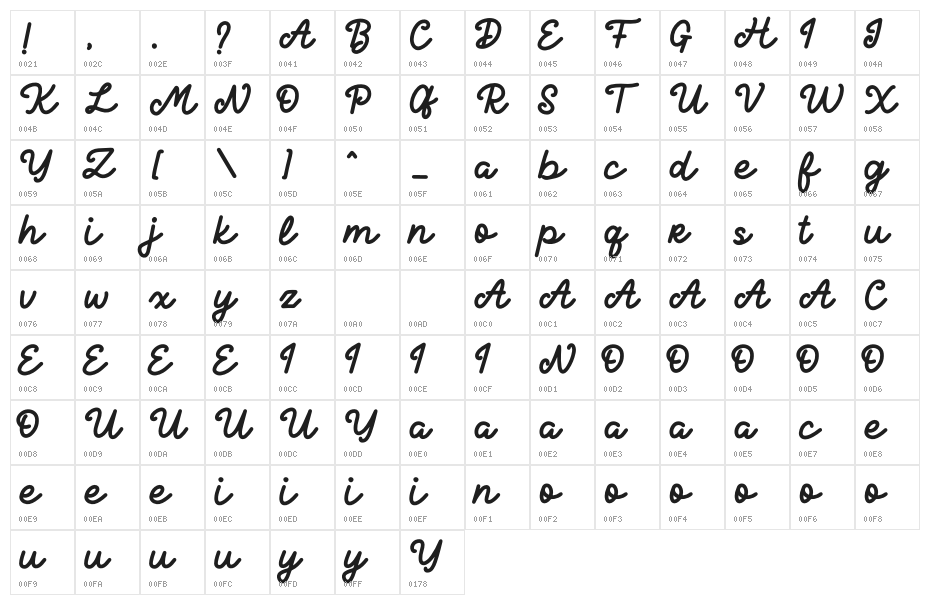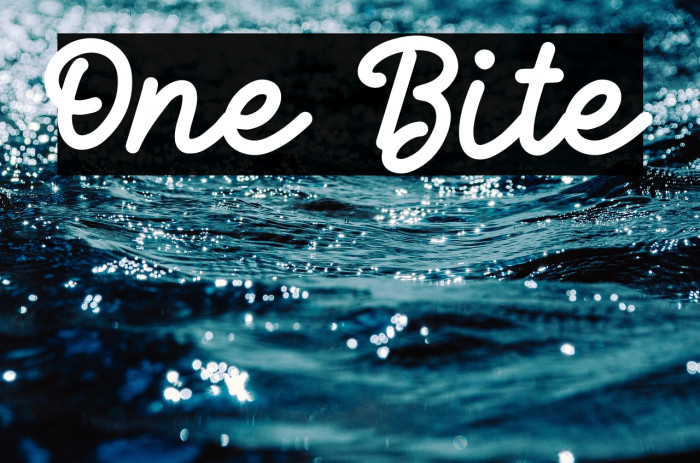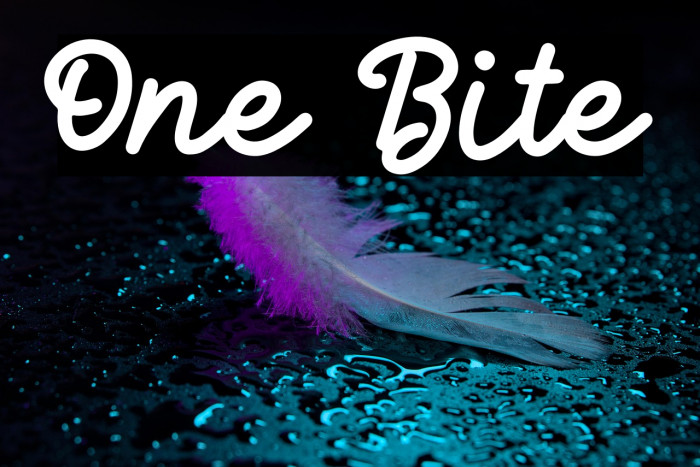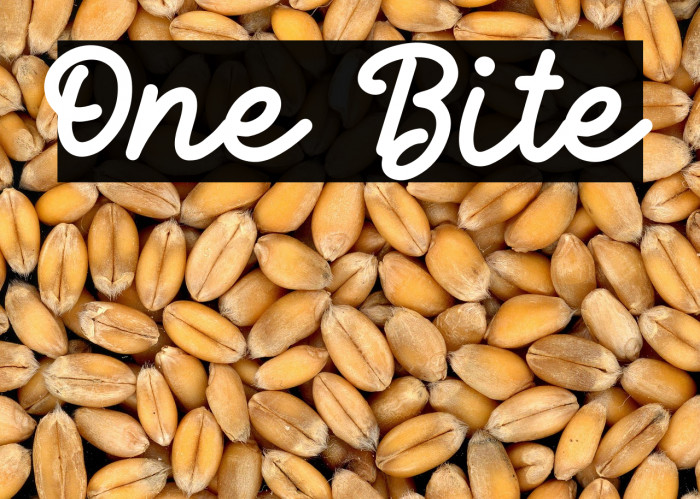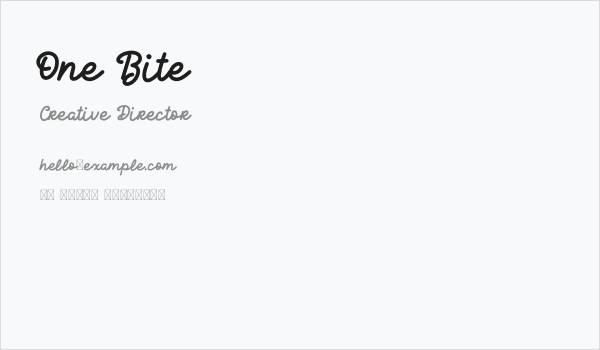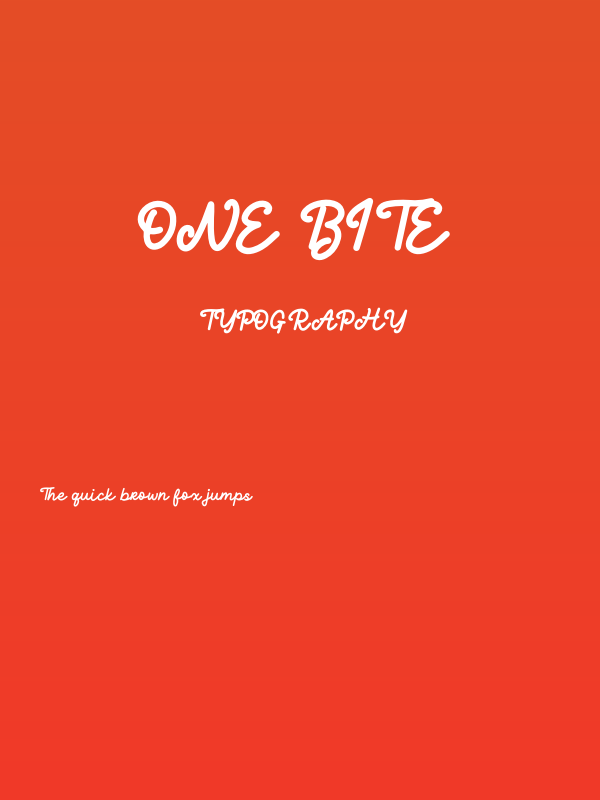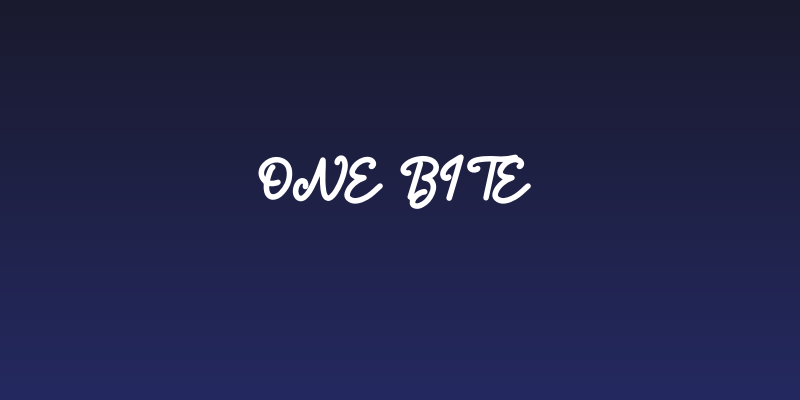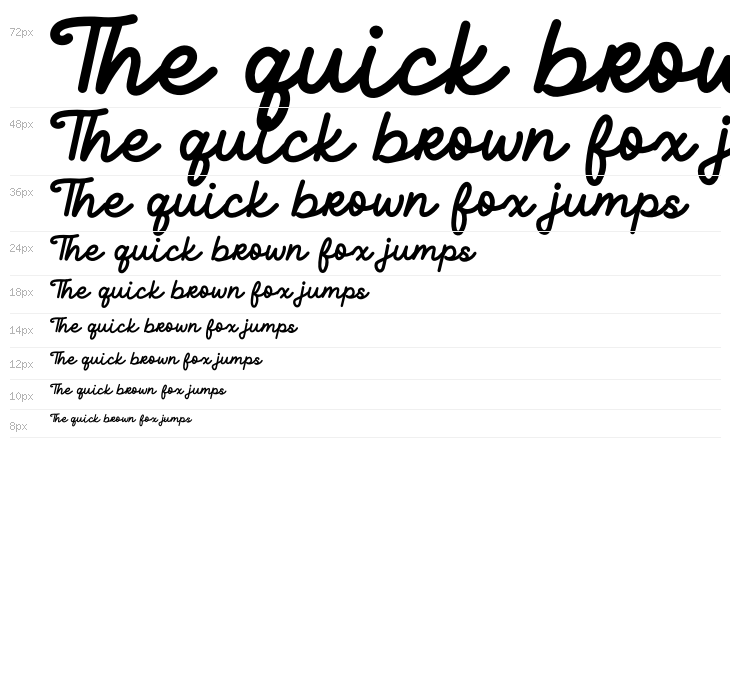
One Bite Font
One Bite Description
This font features a smooth, flowing script style that mimics elegant handwriting. The letters are connected, creating a seamless and continuous look, which is characteristic of cursive fonts. The uppercase letters are slightly larger and more pronounced, while the lowercase letters maintain a consistent height, enhancing readability. The strokes are bold and rounded, giving the font a friendly and approachable appearance. The absence of sharp edges and the presence of smooth curves contribute to its overall graceful aesthetic. This font does not include numerals or special characters, focusing solely on alphabetic characters.
| Proposed Projects | Ideal for wedding invitations, greeting cards, and personal branding projects. |